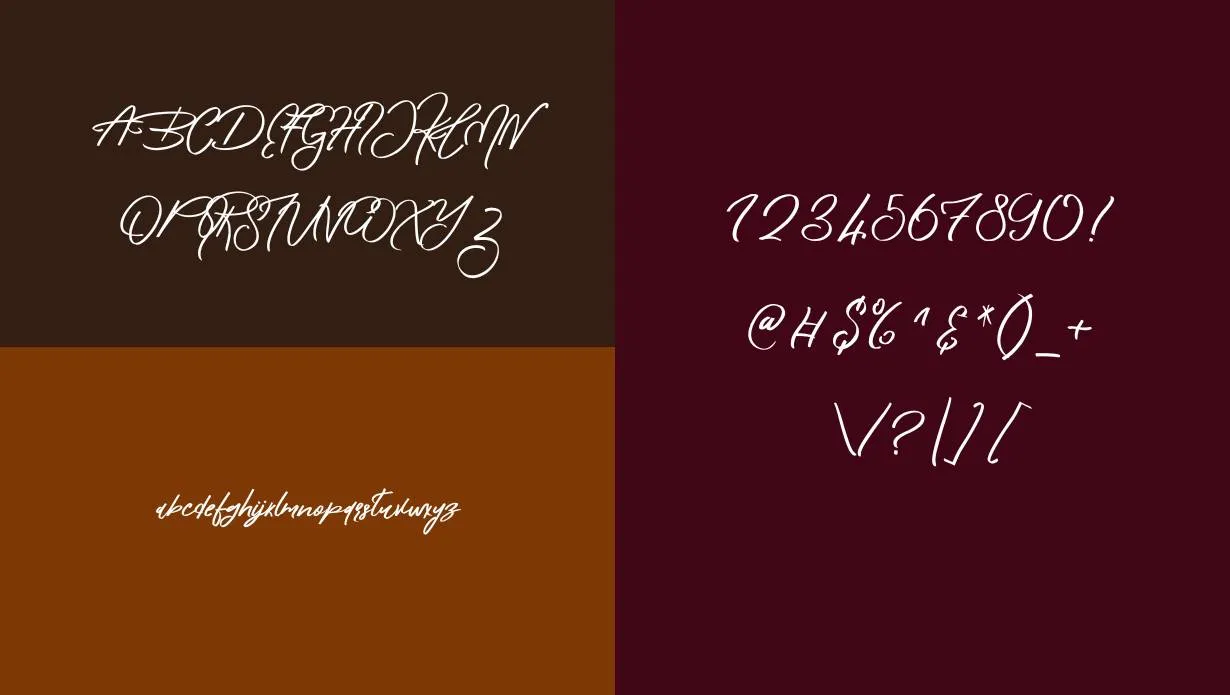
Adelaide font is like a classic novel, quietly elegant and timeless. Suitable for various uses, from formal invitations to poetry, it adds a touch of enduring simplicity. The delicately medium weight of Adelaide provides a gentle and balanced look, and its neutrally proportioned width ensures understated charm.
Adelaide is the font that quietly speaks volumes, making it perfect for messages that require timeless simplicity and quiet elegance.